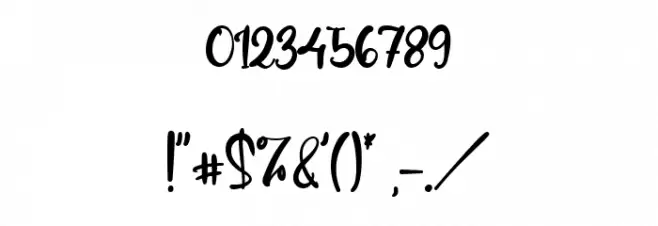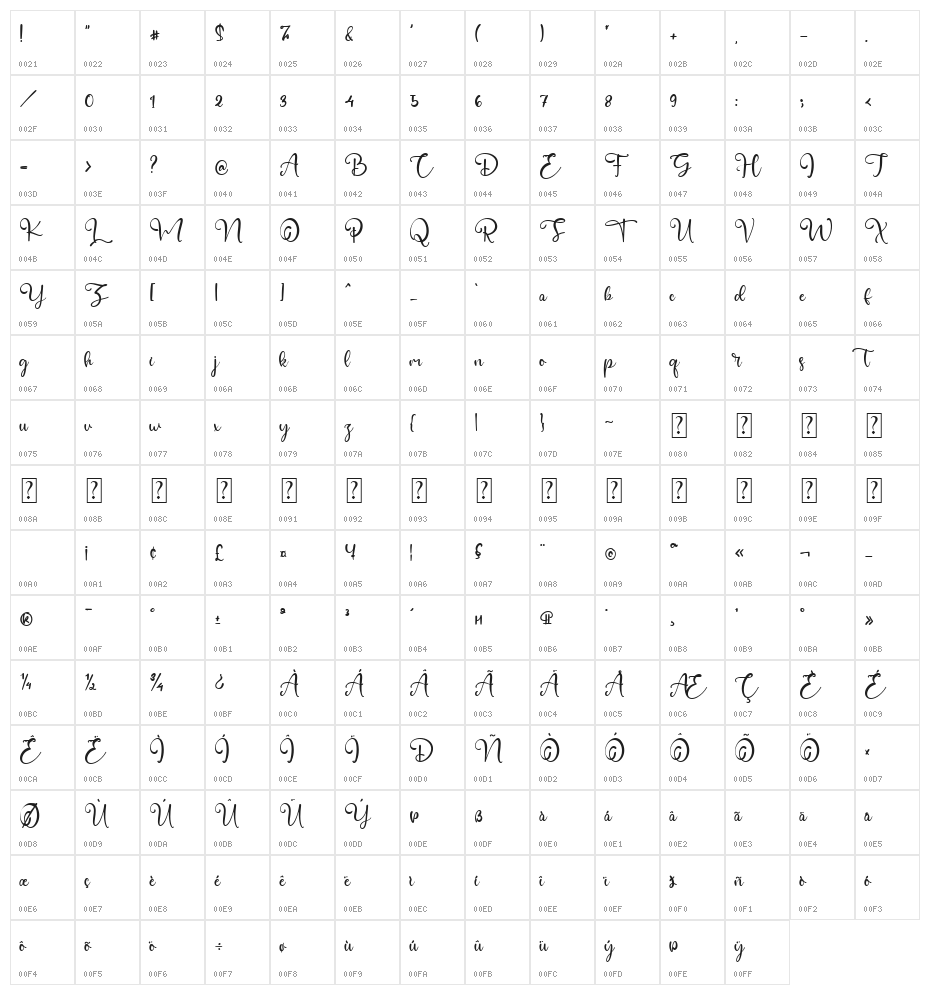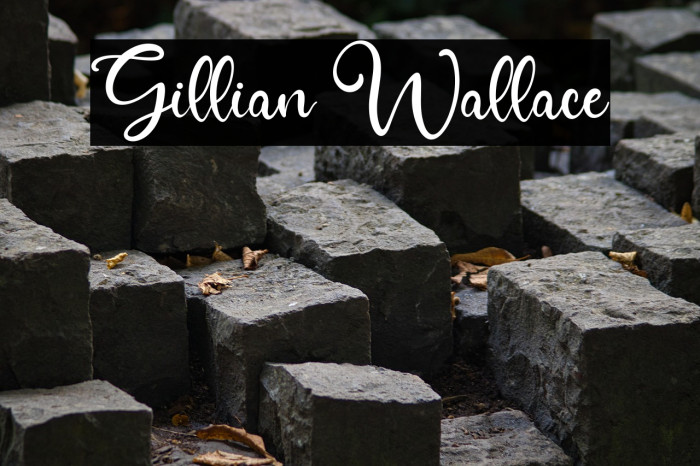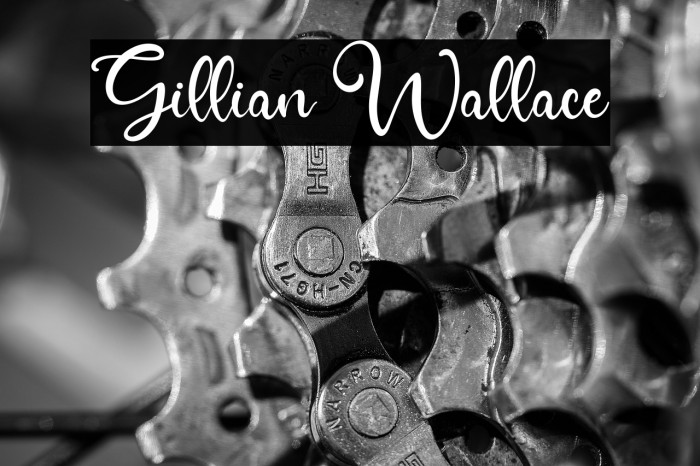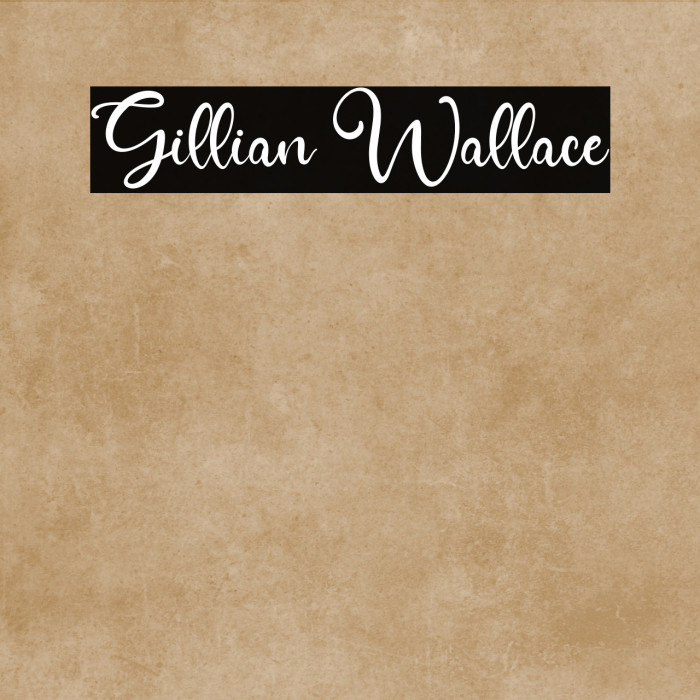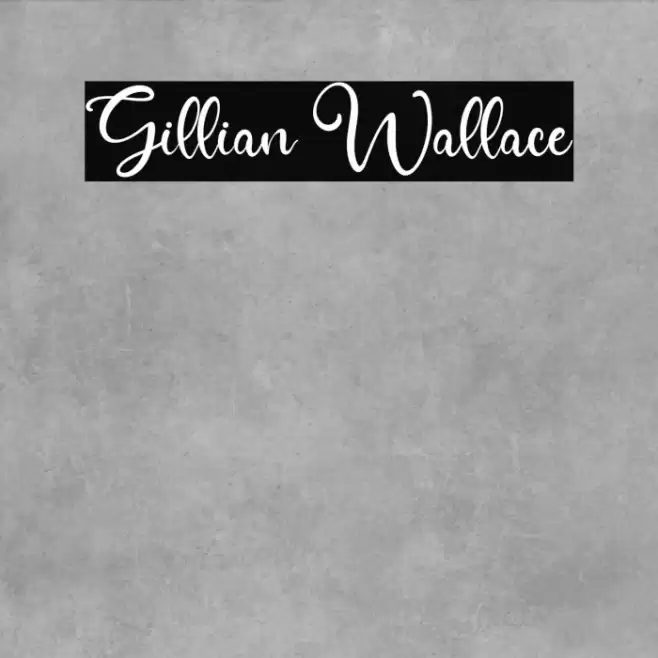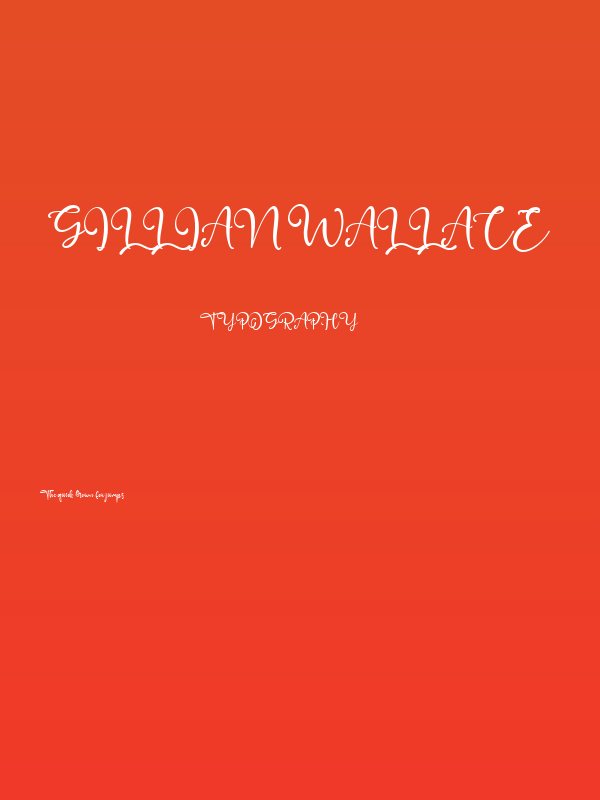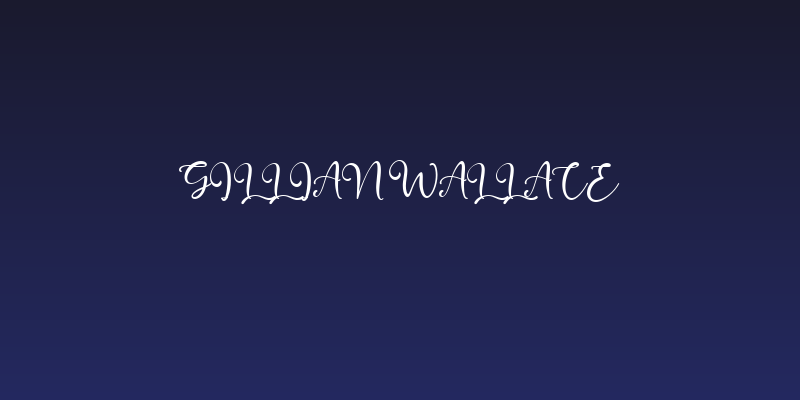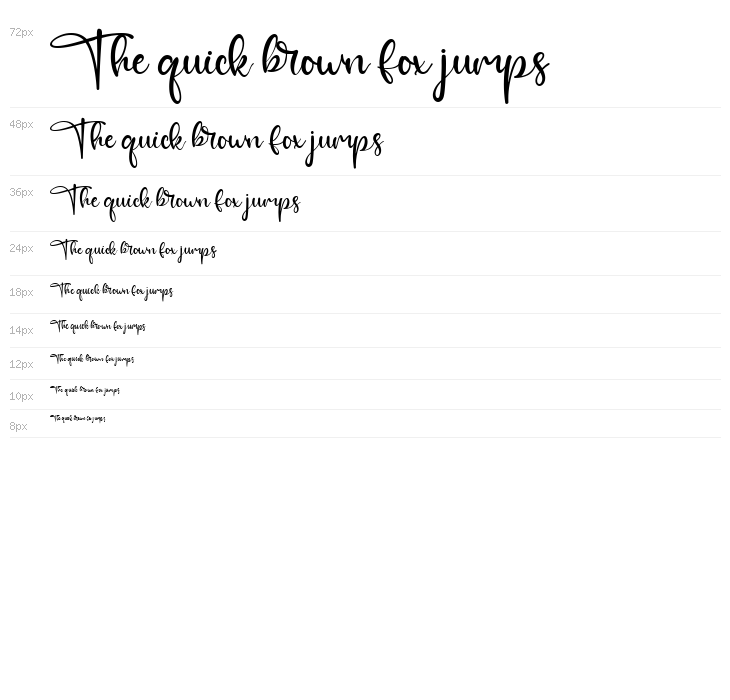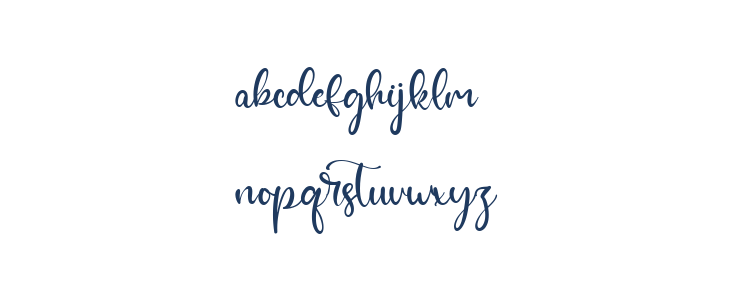
Gillian Wallace Font
Gillian Wallace Description
This font features a flowing, cursive style that exudes elegance and sophistication. The characters are interconnected, creating a seamless and fluid appearance. The uppercase letters are slightly more ornate, with flourishes that add a touch of drama. The lowercase letters maintain a consistent rhythm, enhancing readability while retaining a stylish flair. Numbers and special characters are designed to match the overall aesthetic, ensuring a cohesive look across all text elements. The font's design is perfect for projects that require a personal, handwritten touch.